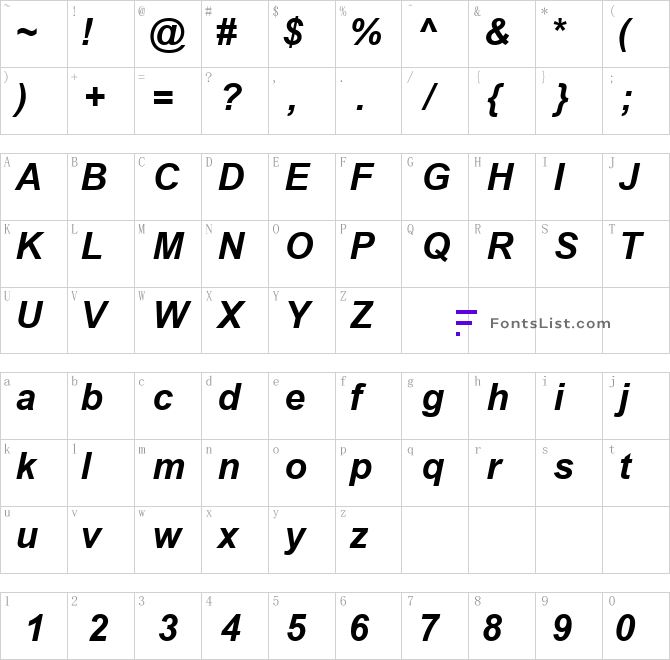
- Font Name:Arial
- Subfamily:Gras Italique
- Subfamily:Monotype:Arial Bold Italic:version 2.90 (Microsoft)
- Full Name:Arial Gras Italique
- Version:Version 2.90
- PostScript:Arial-BoldItalicMT
Arial-Bold-Italic-copy-4-.ttf is a very beautiful artistic font, Arial-Bold-Italic-copy-4-.ttf is widely used in the design and printing of various books and pictures,Arial-Bold-Italic-copy-4-.ttf has a strong visual impact,Arial-Bold-Italic-copy-4-.ttf is a commonly used font in newspapers, magazines and books, and is used in posters, e-commerce Poster design, store design, logo design, font design and other fields.Arial-Bold-Italic-copy-4-.